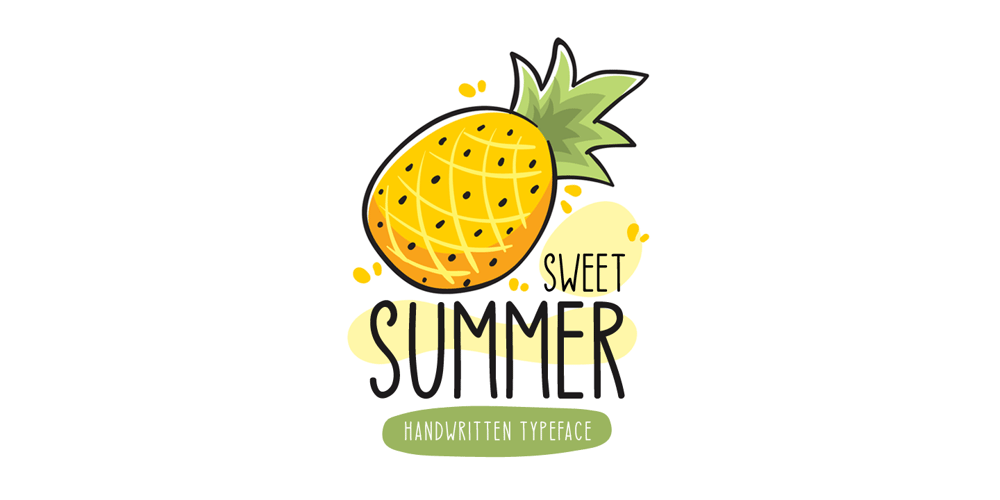
Sweet Summer Font Family was designed by Md Shohail Bhuian and published by Seemly Fonts. Sweet Summer contains 1 styles and family package options. Sweet Summer is a tall and a bit quirky handwritten font. Its friendly and simple style makes this font adept to a wide variety of designs.Caps only Fonts.